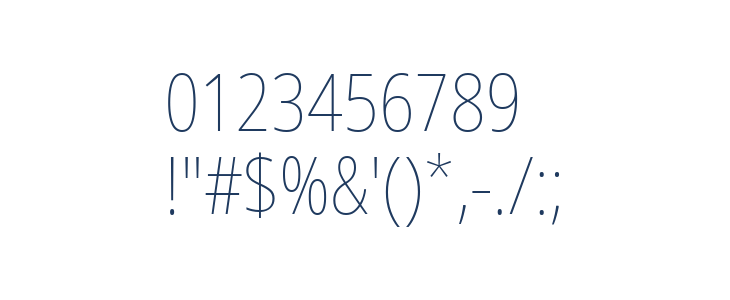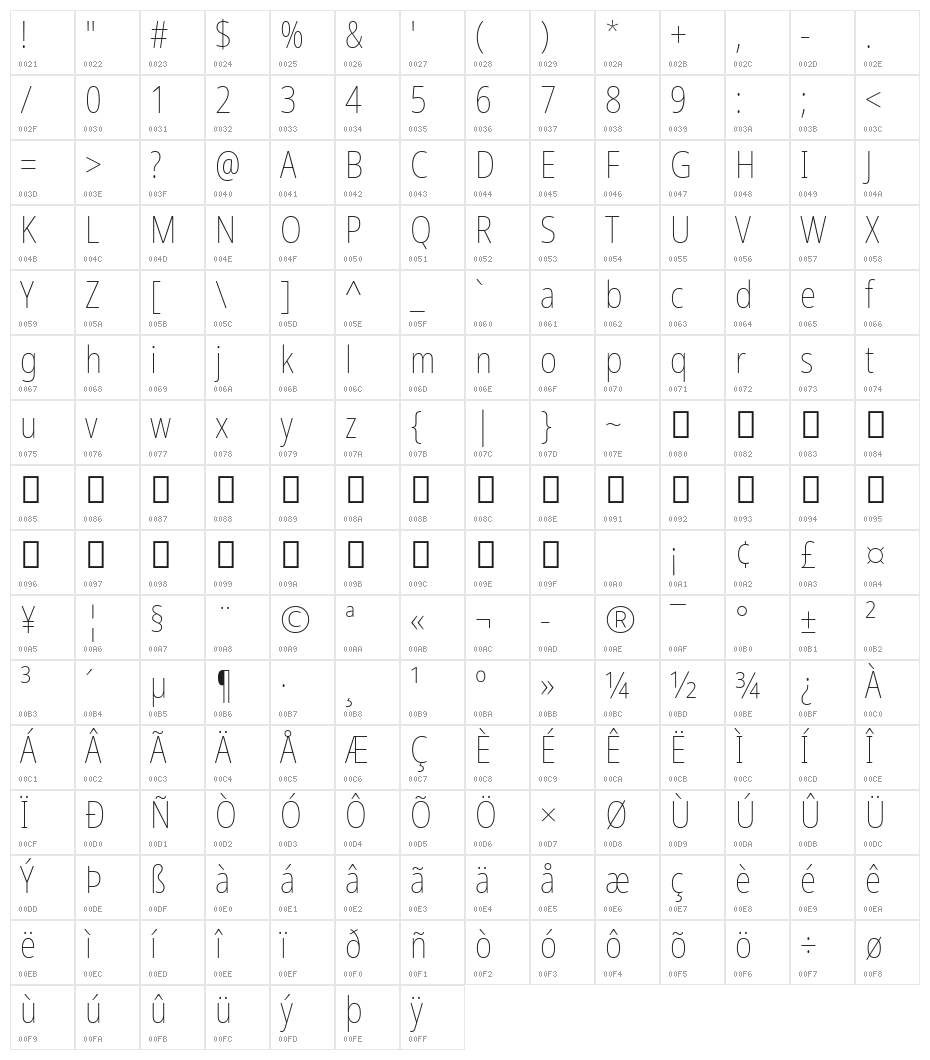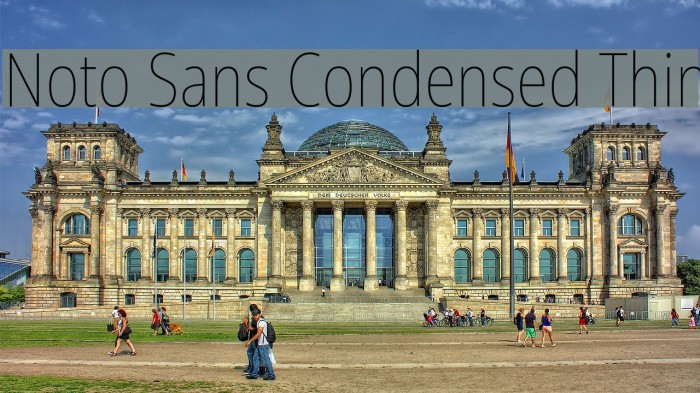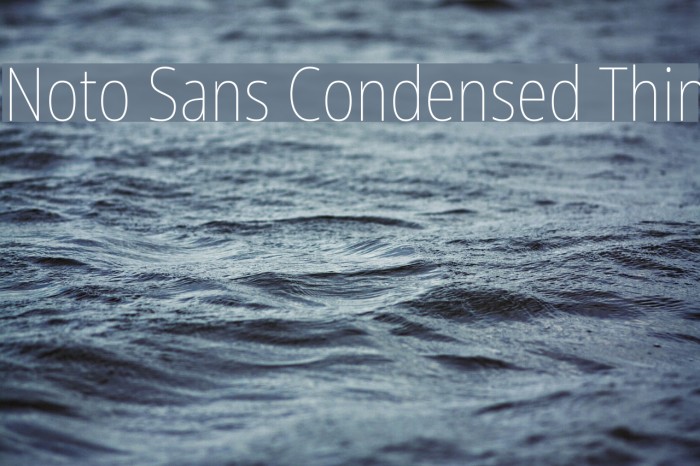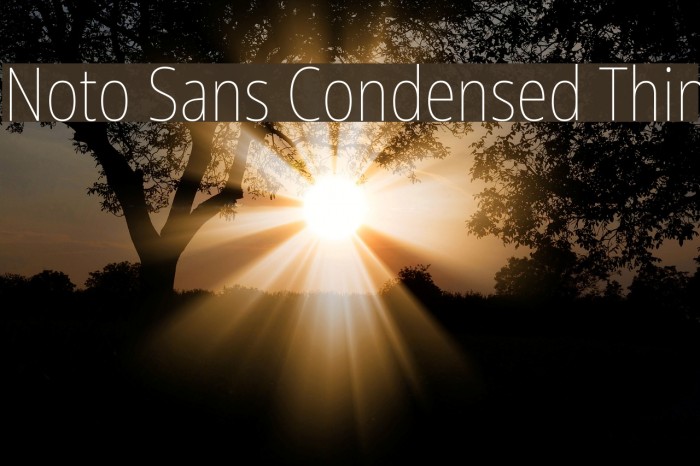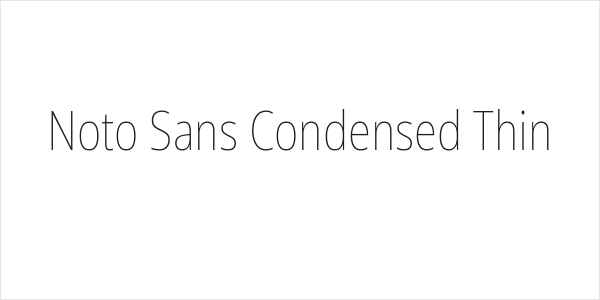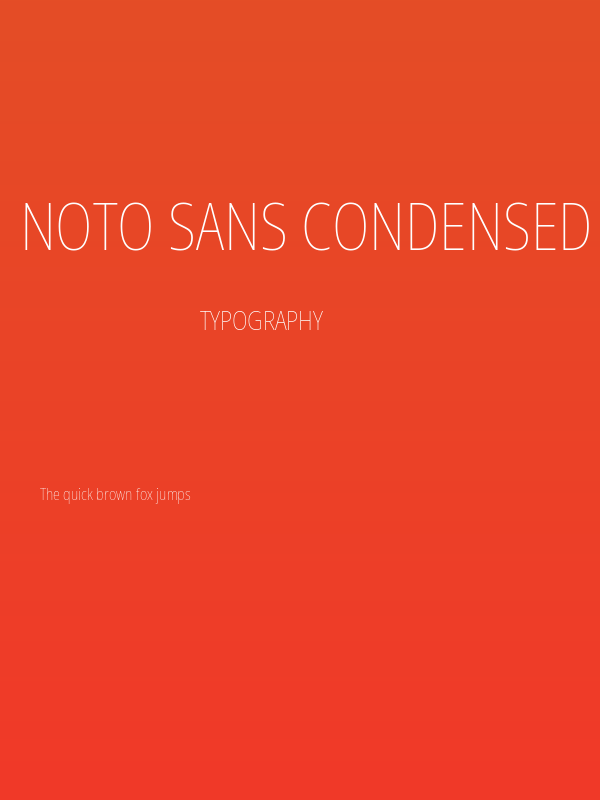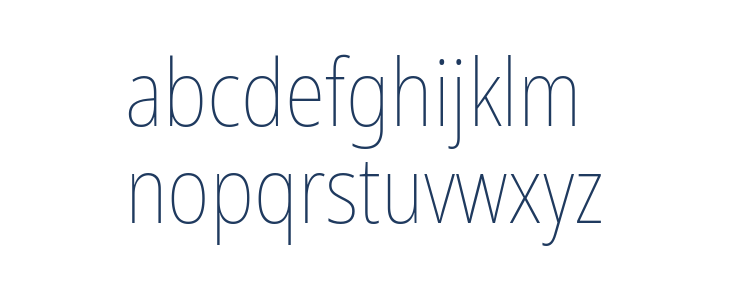
Noto Sans Condensed Thin Font
Noto Sans Condensed Thin Description
This typeface features a clean and modern sans-serif design with a condensed structure. The thin strokes give it a light and airy feel, making it ideal for minimalist design projects. Its uniform character width and consistent line weight provide a harmonious and balanced appearance. The font maintains excellent legibility across both uppercase and lowercase letters, as well as numerals and special characters. Its simplicity and elegance make it versatile for various applications, from digital interfaces to print media.